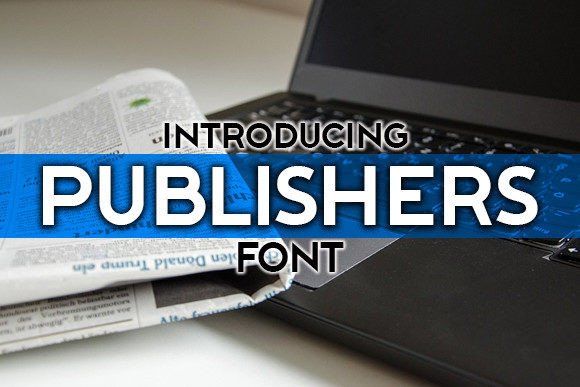
Publishers Font
**Introducing Publishers Font: The Epitome of Elegance and Sophistication**
In a world of bland and ordinary fonts, Publishers Font stands as a beacon of elegance, sophistication, and sheer beauty. This remarkable sans serif font, meticulously crafted by the talented vladimirnikolic, is not just a font; it's an artistic masterpiece that will elevate your designs to new heights of visual splendor.
With its graceful curves, delicate lines, and timeless appeal, Publishers Font is the perfect choice for those seeking to create logos that exude elegance and professionalism. Its clean and crisp structure ensures that your words will be conveyed with clarity and impact, while its subtle nuances add a touch of intrigue and sophistication that will leave a lasting impression on your audience.
Imagine your logo adorned with the refined strokes of Publishers Font, commanding attention and inspiring admiration wherever it appears. Whether you're designing for a high-end fashion brand, a prestigious law firm, or a luxury hotel, Publishers Font will effortlessly elevate your brand identity and communicate your commitment to excellence.
But Publishers Font's allure extends far beyond logos. Its versatility and charm make it an ideal choice for a wide range of creative projects. Unleash your imagination and use it to create stunning headlines that captivate readers, eye-catching banners that demand attention, or stylish t-shirts that make a statement. With Publishers Font as your creative companion, the possibilities are limitless.
So, why settle for ordinary when you can embrace the extraordinary? Choose Publishers Font today and embark on a journey of visual excellence. Let your designs radiate elegance, sophistication, and a touch of timeless charm.